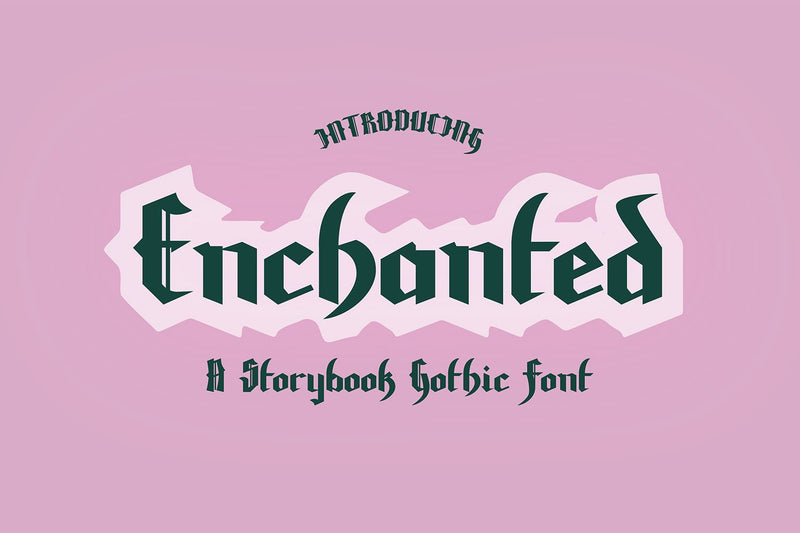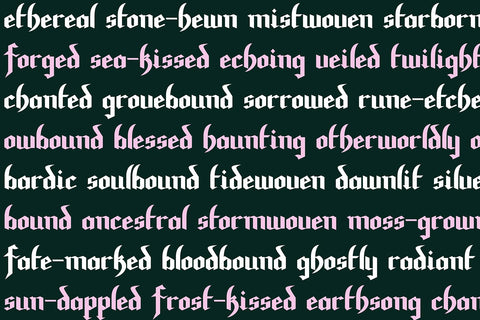
Enchanted Storybook Blackletter Font
"Enchanted" a bold and stylish blackletter font.
This font is a hand-drawn blackletter font that is perfect for social media or crafty projects. Use if for branding, crafts for decor, invitations, and more! Includes upper and lowercase glyphs, numbers, punctuation, and intl characters.